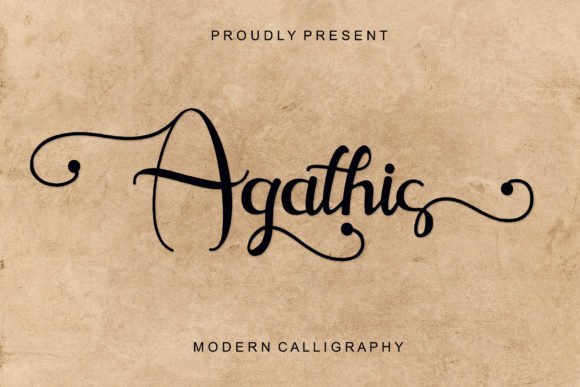
When Words Become Art
Have you ever been in the midst of brainstorming a new project, and suddenly, a single font sparks an idea that sends your creative juices flowing? For designers, this moment is pure magic. It’s the moment when the perfect font can elevate a design from ordinary to extraordinary. For me, that font is the elegant Agathis Font.
Agathis Font is a beautiful, delicate calligraphy typeface designed to add a touch of sophistication to any design. Its unique characters that dance along the baseline make it perfect for a wide range of applications, from logos and wedding invitations to headings, t-shirts, and signage. With its PUA encoding, accessing all the glyphs and swashes is a breeze, making it a valuable tool for designers who want to add that extra special touch to their work.
Agathis Font Key Features
- Font Family: Agathis, Agathis Italic, Agathis Bold, Agathis Bold Italic
- Unique Characteristic: Agathis Font is designed with a unique blend of modern and traditional elements, making it suitable for a wide range of applications, from corporate branding to editorial design.
Designer Review: Agathis Font
Overall, I think Agathis Font is a beautiful, elegant script font that can add a touch of sophistication to any design project. ✨ One of the things I love about this font is its fluid, handwritten feel, which makes it perfect for creating a sense of warmth and approachability. ✨ The font also features a wide range of weights and styles, making it incredibly versatile and easy to work with. ✨ Additionally, the font is highly legible, even at small sizes, which is a major plus for designers who need to ensure their text is readable across various platforms.
However, there are a few limitations to the font that I’d like to mention. ⚠️ One of the main issues I’ve encountered is the font’s lack of language support. While it’s a beautiful font for English text, it may not be as effective for languages with more complex scripts or character sets. ⚠️ Additionally, the font can be quite expensive, which may be a barrier for designers or organizations on a tight budget. ⚠️ Finally, I’ve noticed that the font can be a bit tricky to pair with other fonts, as it has a very distinct style that may not mesh well with more modern or sans-serif fonts.
- Beautiful, elegant script font with a handwritten feel
- Wide range of weights and styles for versatility
- Highly legible, even at small sizes
- May not be suitable for languages with complex scripts or character sets
- May be tricky to pair with other fonts
Agathis Font works well for headings and titles in Canva, especially for designs that require a clean and modern look.
Agathis Font is ideal for creating custom typography in Adobe Photoshop and Illustrator, especially for designs that require a unique and elegant look.
Agathis Font works well for presentations and documents that require a professional and modern look.
Alternative Font Options to Agathis Font